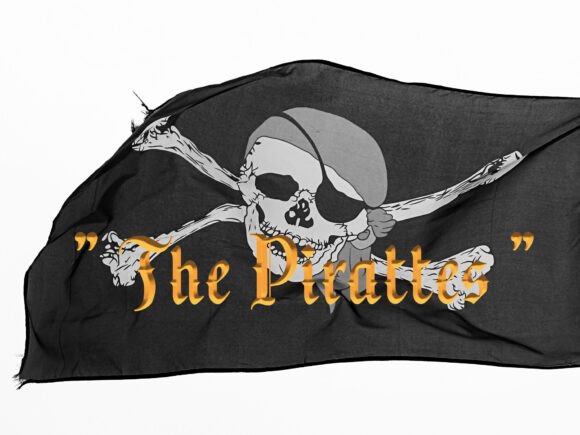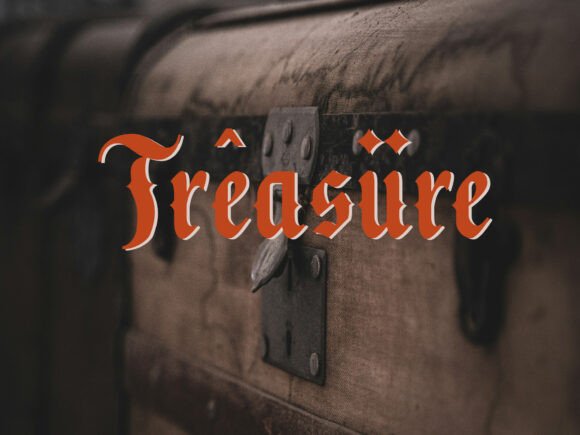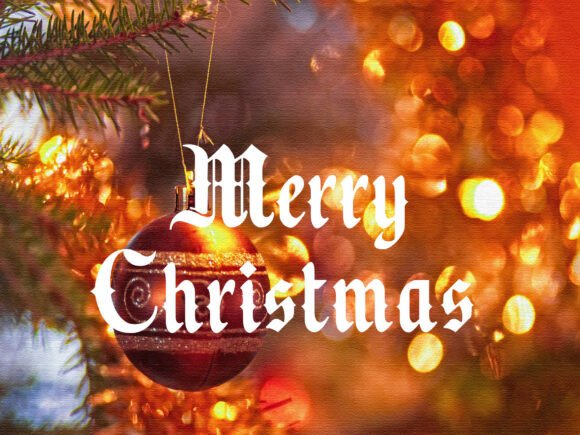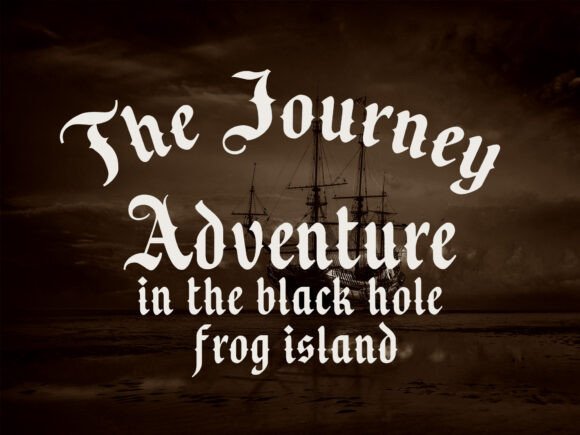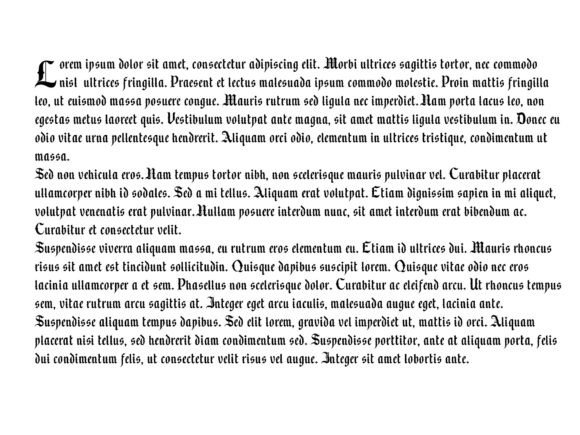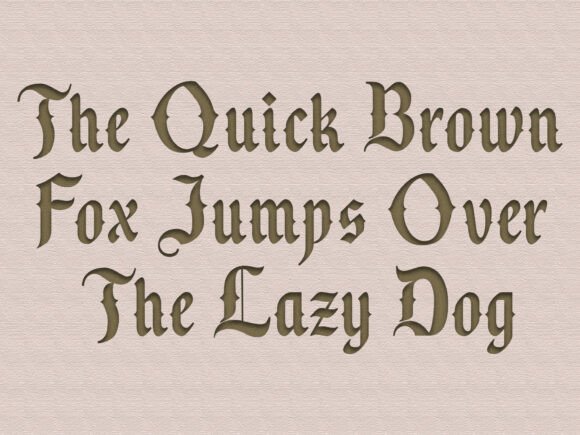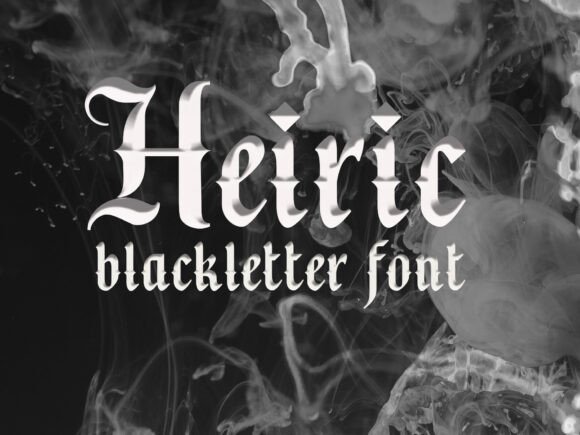
Introducing Heiric Font: The Epitome of Boldness and Beauty
In the realm of typography, a font can make or break the visual appeal of a design. For those seeking to leave an indelible mark, Heiric Font emerges as a game-changer. This striking blackletter font is the perfect amalgamation of boldness and beauty, designed to elevate your design aesthetics to unprecedented heights.
The Distinctive Charm of Heiric Font
Heiric Font boasts a curvaceous appearance that lends an organic, handwritten touch to any design. Unlike traditional blackletter fonts that often exude a sense of formality and rigidity, Heiric breaks the mold with its fluid lines and elegant curves. This unique characteristic makes it an exceptional choice for designers and crafters looking to infuse their projects with a personal touch.
A Statement in Typography
Heiric is more than just a font; it’s a statement. Its bold and beautiful design ensures that your typography stands out in a crowded digital landscape. Whether you’re working on a branding project, crafting a logo, or simply looking to enhance your digital content, Heiric provides the perfect blend of style and substance.
One of the key advantages of Heiric Font is its versatility. Its distinctive yet adaptable design makes it suitable for a wide range of applications. From high-end fashion brands to creative blogs, Heiric can seamlessly integrate into various design contexts, adding a touch of sophistication and elegance.
Why Choose Heiric Font?
• Unique Design: Heiric’s curvaceous blackletter design sets it apart from more conventional fonts, offering a fresh and distinctive look.
• Organic Feel: The font’s organic, handwritten touch adds warmth and personality to your designs.
• Bold and Beautiful: Heiric strikes the perfect balance between boldness and beauty, making your typography both eye-catching and aesthetically pleasing.
• Versatile: Suitable for a variety of design projects, from logos and branding to digital content and more.
How to Use Heiric Font Effectively
To truly leverage the potential of Heiric Font, consider the following tips:
• Pair with Simplicity: Heiric’s bold design can be overwhelming if not balanced properly. Pair it with simpler fonts or clean backgrounds to create visual harmony.
• Experiment with Sizes: Don’t be afraid to experiment with different sizes to emphasize certain words or phrases, adding depth and hierarchy to your design.
• Play with Colors: While Heiric looks stunning in black, exploring different colors can help you achieve unique effects and make your design pop.
Heiric Font is a revolutionary blackletter font that brings a perfect blend of boldness and beauty to the world of typography. Its unique, curvaceous design not only sets it apart but also offers a versatile solution for designers and crafters aiming to make a lasting impression. With Heiric, you’re not just choosing a font; you’re making a statement. Elevate your design aesthetics and let Heiric be the voice that echoes through your creative projects.